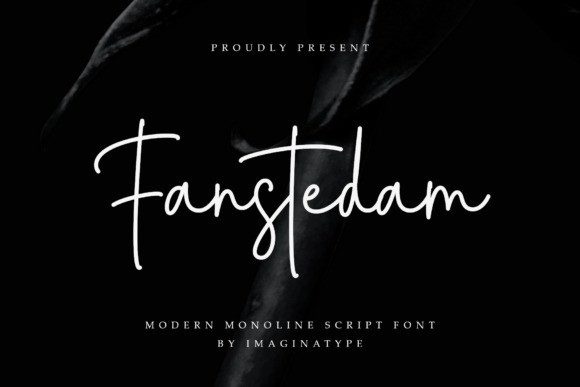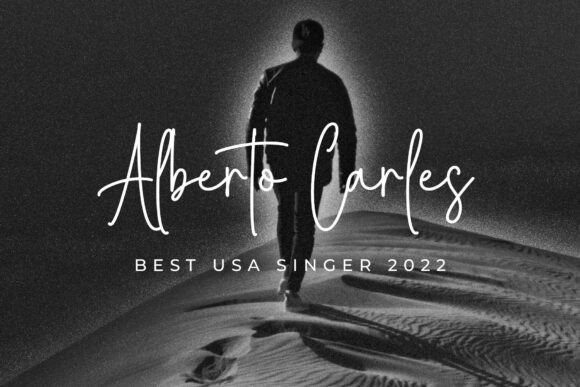
Fanstedam Script Font
Fanstedam Script Font a sleek and modern monoline handwritten font. It’s perfect for wedding invitations, logo designs, and contemporary branding projects that call for a personal touch. With its smooth strokes and natural handwritten feel, Fanstedam strikes a balance between professional and approachable. Ideal for visual identities, digital signatures, and stylish social media content.